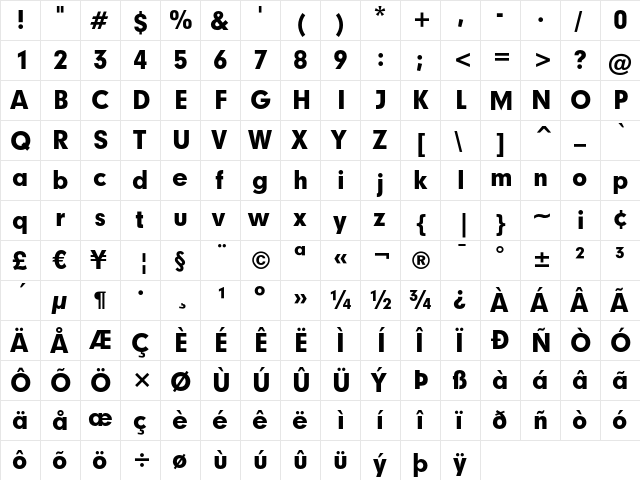
Geometric 706 Black
Design Context for Geometric 706 Typeface
Geometric 706 offers clean, dependable letterforms without strong stylistic allegiance, making it a practical choice for designers who need flexibility.